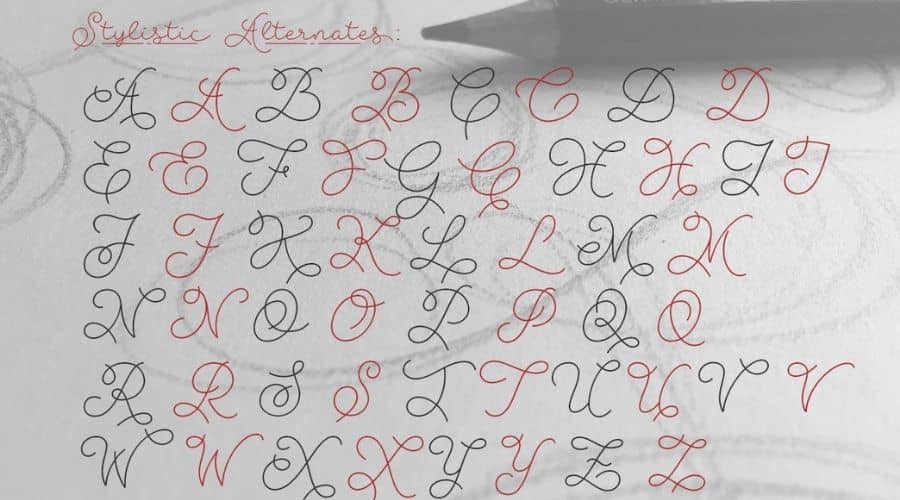
Abigail Script
Abigail Script is a monoline cursive typeface that looks like it was handwritten. All uppercase letters and some lowercase letters have stylistic alternates, ligatures, and positional forms. In addition, the Font features a few decorations in place of the digits 1-9. They’re ideal for words that are 5-6 characters long. The Font is designed and published by roland huse design on February 3, 2018. It contains Eastern and Western European accented characters.
Ads and sales campaigns, logos, restaurants, tags, business cards, quotes, posters, pamphlets, magazines, branding designs, online postings and posters, album art, and so on can all benefit from the Font.